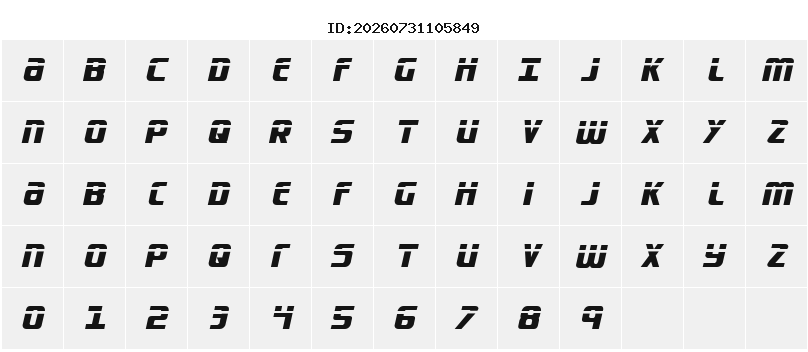
Lightsider Compact Laser Preview
• Font Name: Lightsider Compact Laser
About Lightsider Compact Laser.ttf
Lightsider Compact Laser.ttf is a modern, elegant sans-serif font designed for ultimate readability and visual harmony. Perfect for branding, headlines, web design, and print materials.